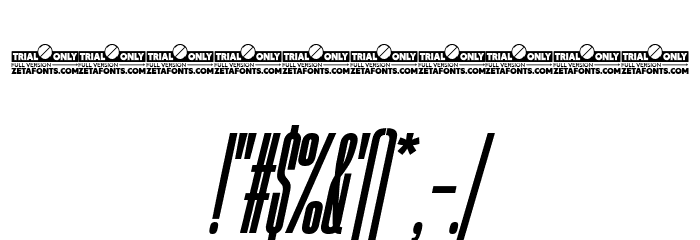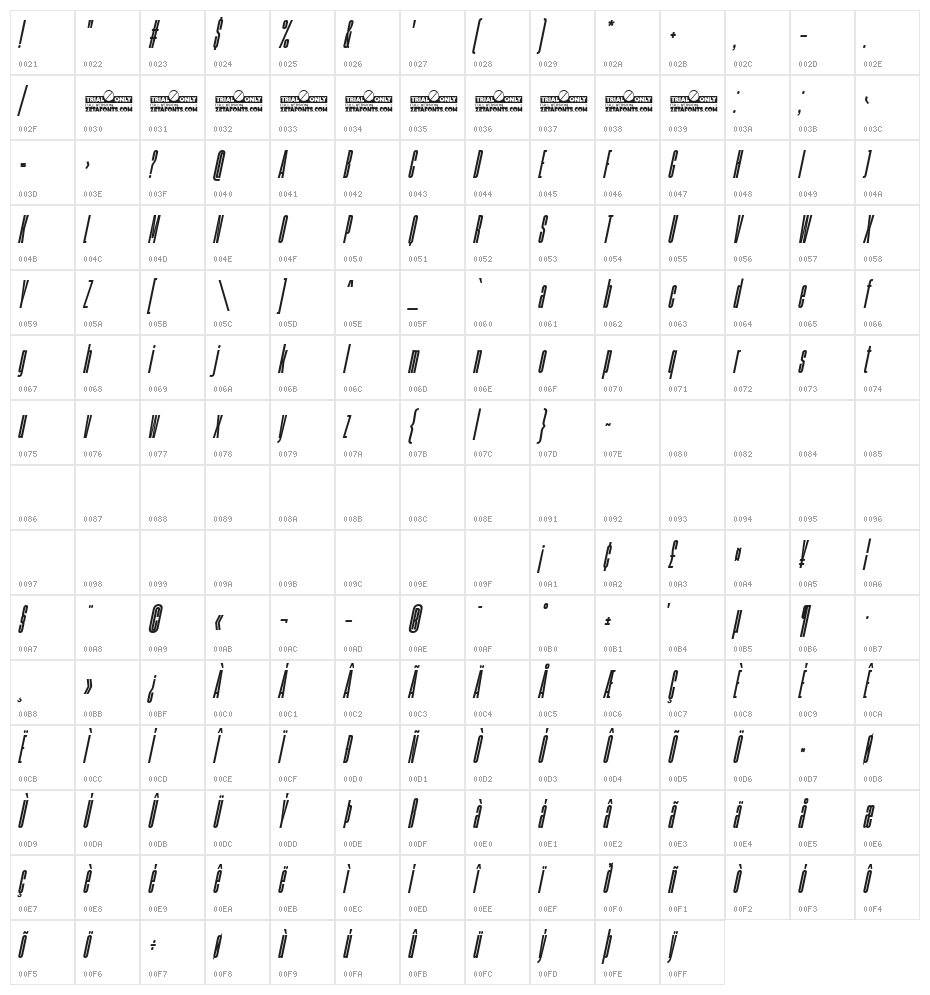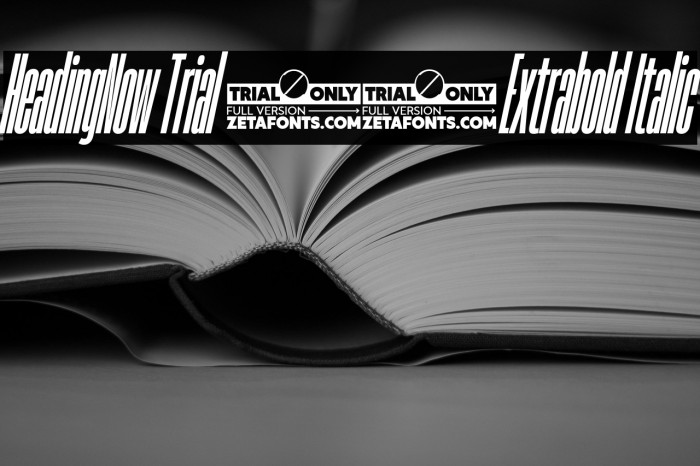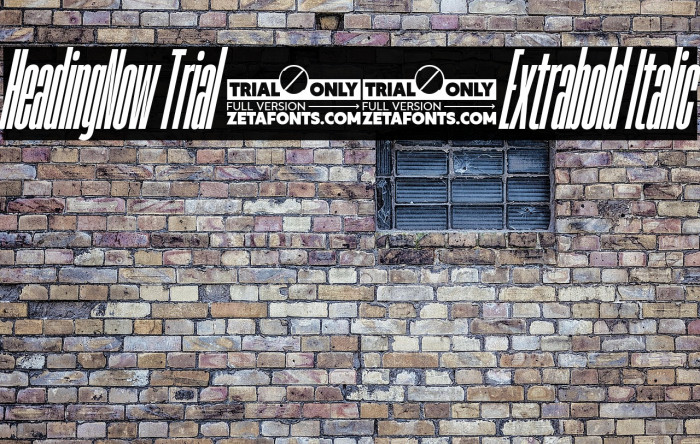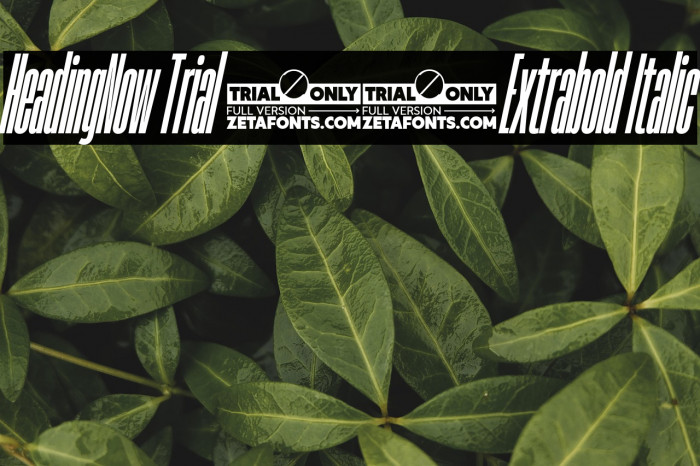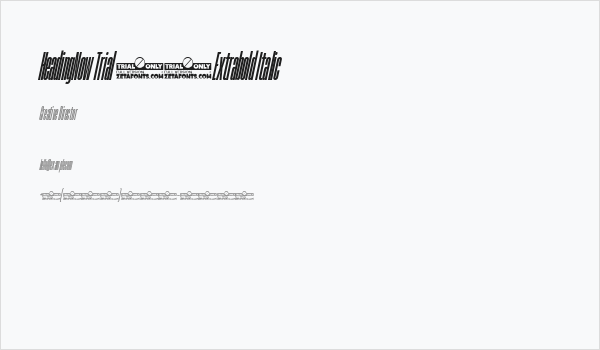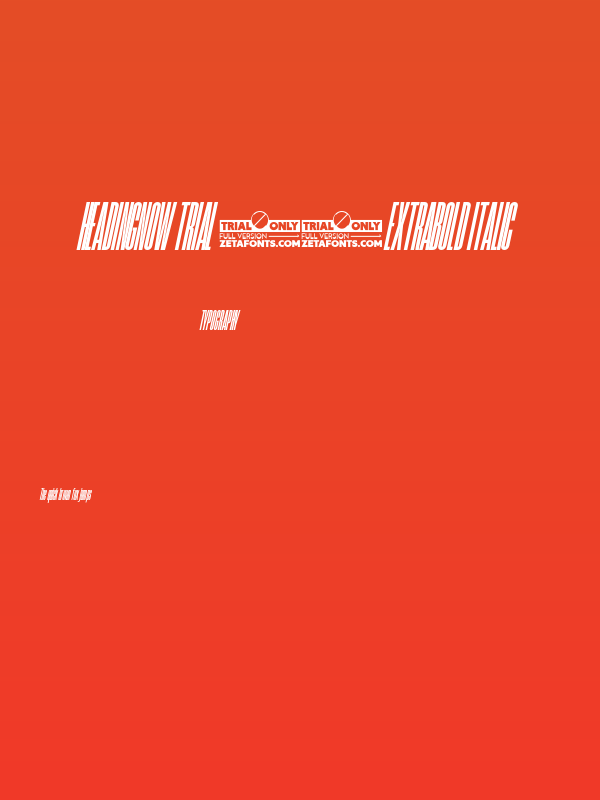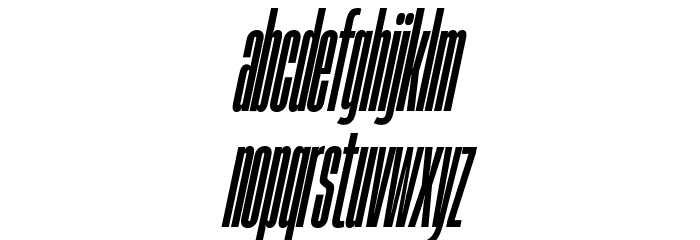
HeadingNow Trial 07 Extrabold Italic Font
HeadingNow Trial 07 Extrabold Italic Description
This font exhibits a bold and dynamic presence with its extra-bold weight and italicized style. The characters are tightly spaced, creating a sense of urgency and movement. The strokes are thick and consistent, providing a high contrast that enhances readability and impact. The uppercase and lowercase letters maintain a uniform slant, contributing to a cohesive and modern appearance. The numerals and special characters are designed to match the overall aesthetic, ensuring versatility across different uses. This font is ideal for making strong visual statements, capturing attention with its assertive and sleek design.
| Use Case | Headlines, Logos, Advertising |
| Proposed Projects | Ideal for headlines, advertising, branding, and any project requiring a strong visual impact. |